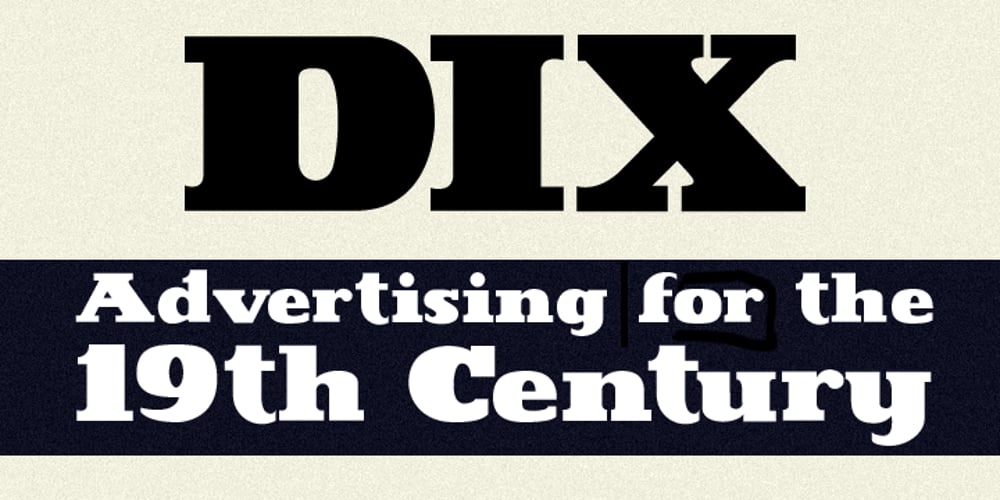
Dix Font Family was designed by Randy Harris and published by Just My Type. Dix contains 1 styles and family package options. An offbeat not-quite-slab, not-quite-bracketed serif. And its extreme weight and width. Richard Dix started as a surgeon and turned out an actor, one of the lucky few who made a successful transition from silent film to talkies. In 1929 he made the movie western, “Redskins,” and his name appeared on a brilliant poster promoting the film. “Richard DIX”; four upper case and six lower case letters. The font Dix is derived and extrapolated from impressions of those 10 letters. Inspired by the poster for the 1929 film, “Redskin,” and a desire to create a black Edwardian font with an offbeat serif. Usage recommendations Western movie or 19th century-style advertising posters.